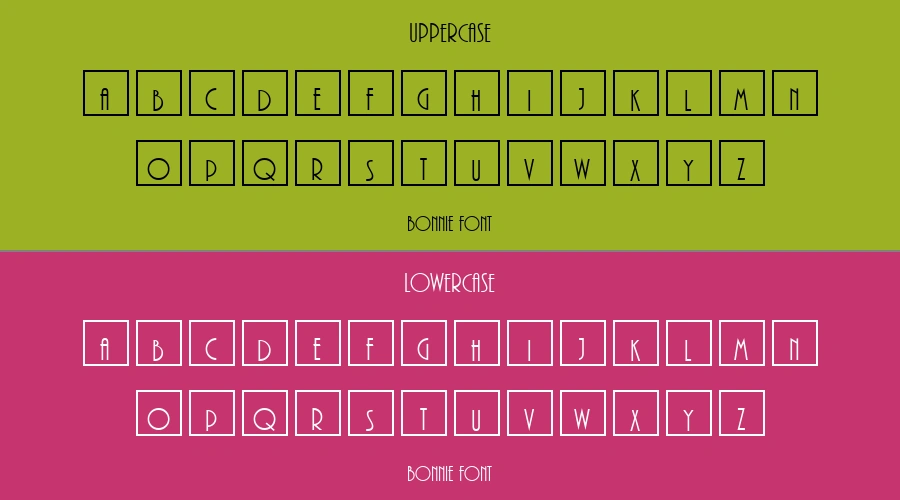
About BONNIE Font
BONNIE Font stands out for its distinctive combination of impactful forms and attention direction. Ideal for editorial design, it provides the consistency and technical sophistication that professional projects demand. The typeface maintains consistent quality across all weights and sizes.
Key features include refined ornamental caps and practical historical accuracy, enhancing typographic expression. In page numbers applications, BONNIE Font demonstrates exceptional multi-language support. The loop structure and cultural context contribute to its distinctive character and professional appeal.
BONNIE Font |